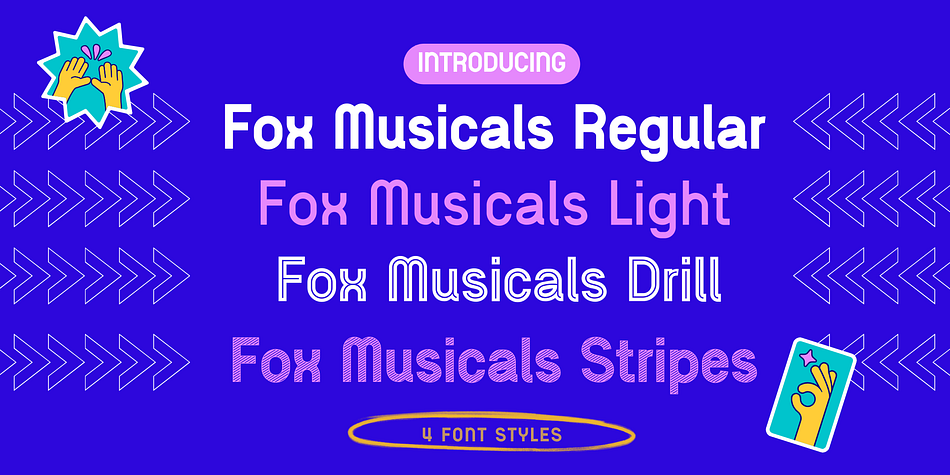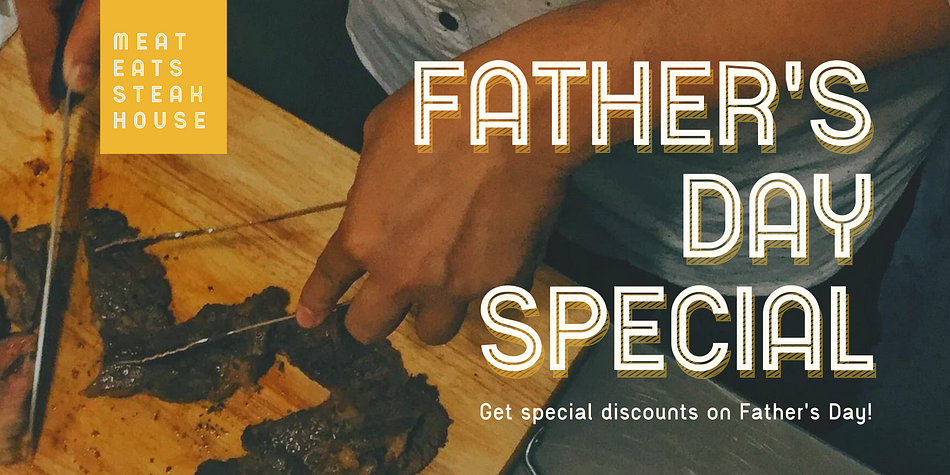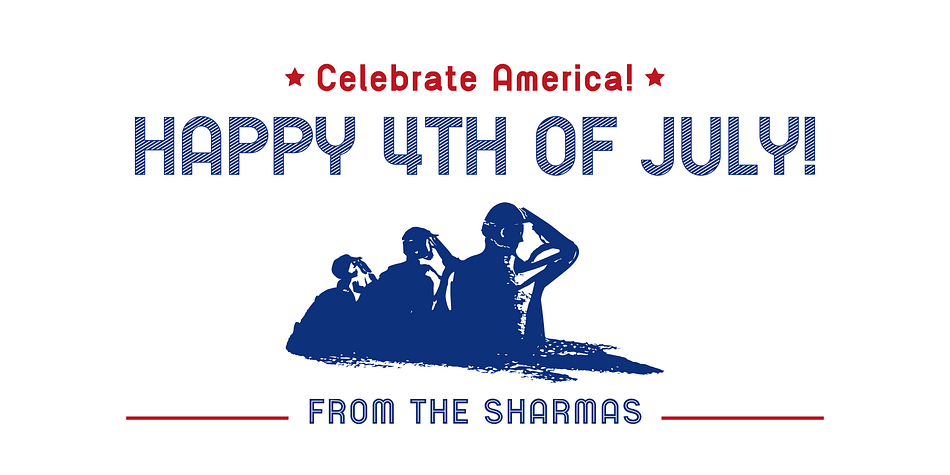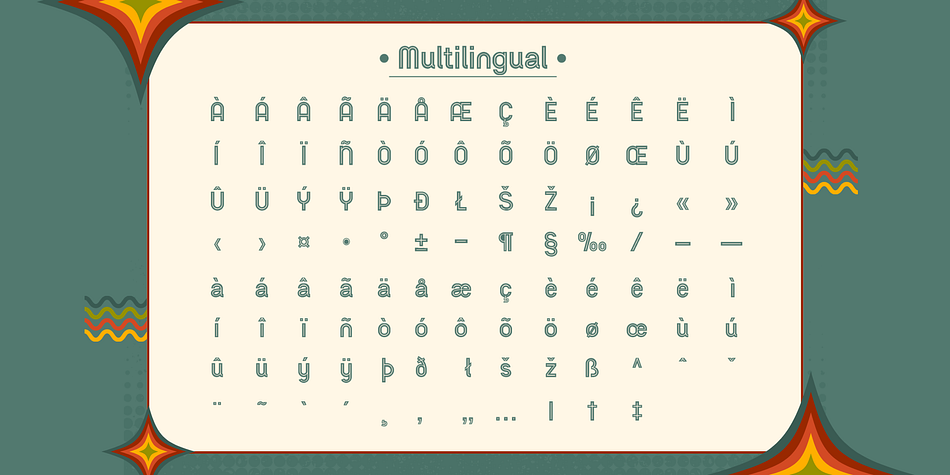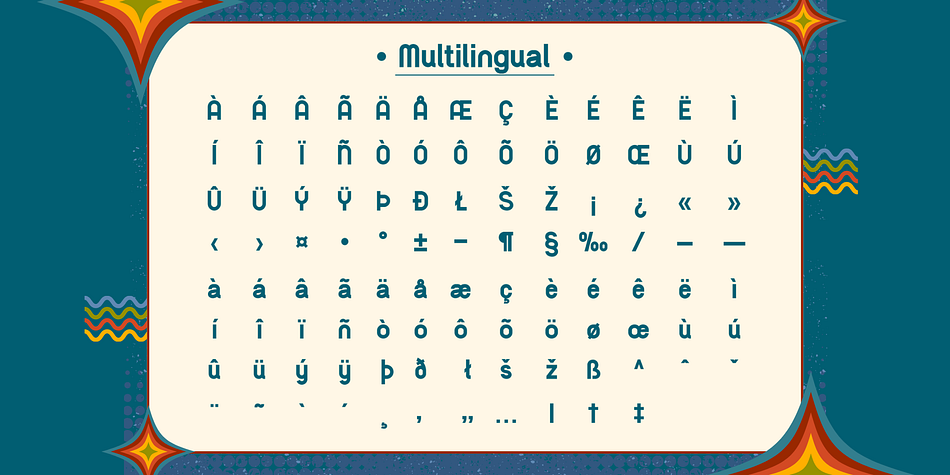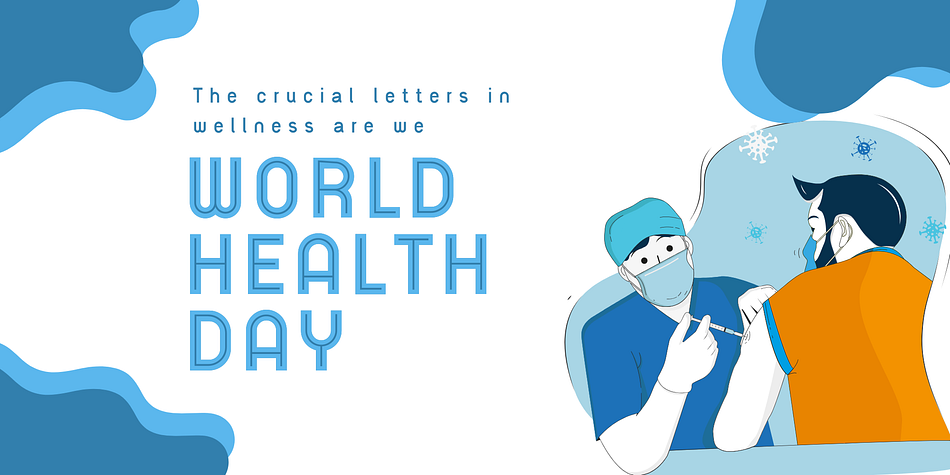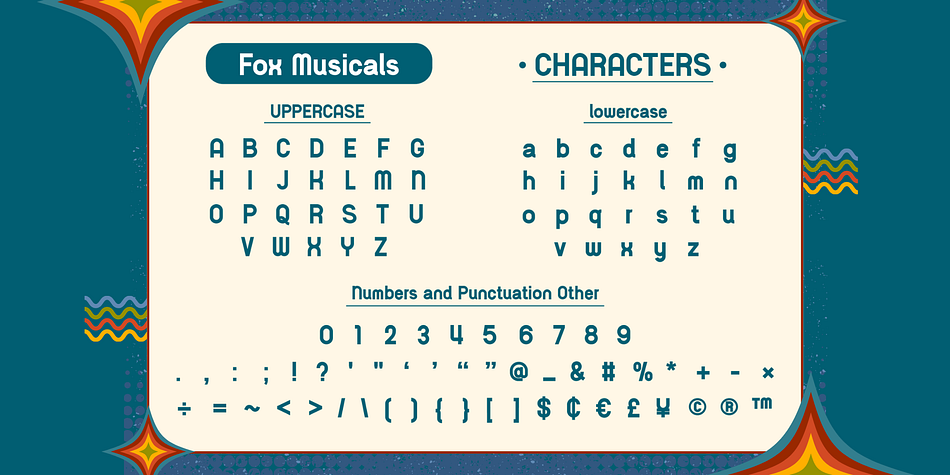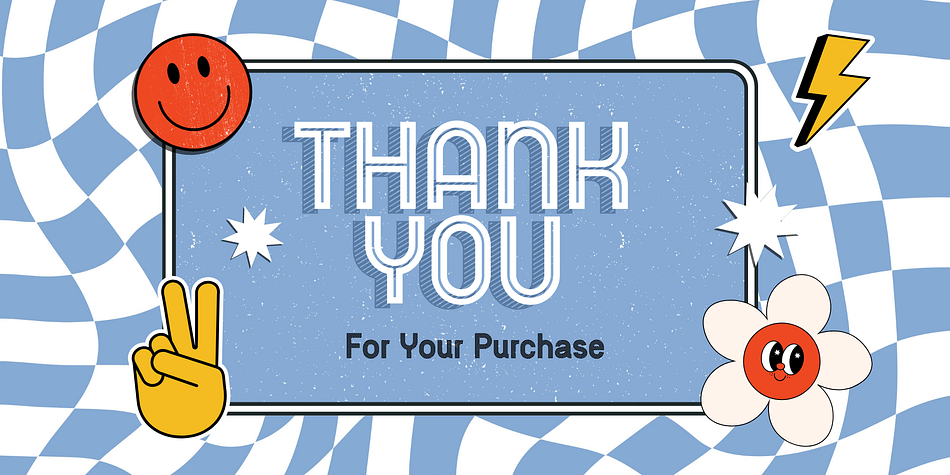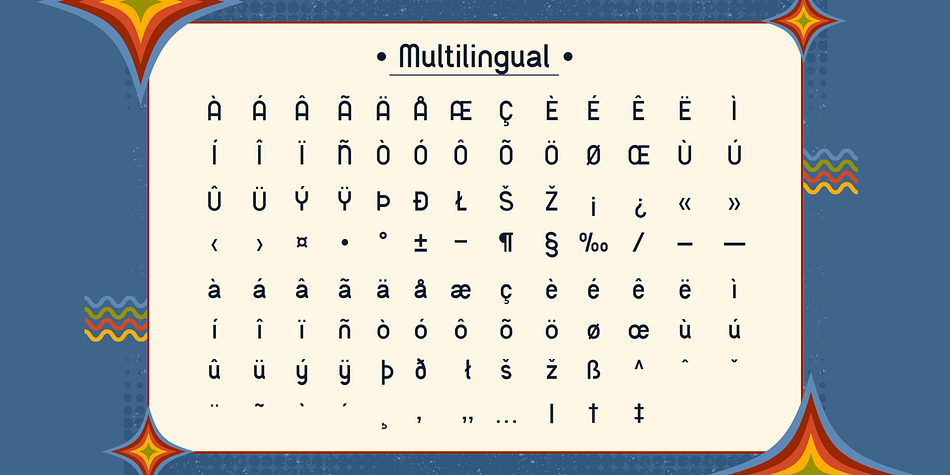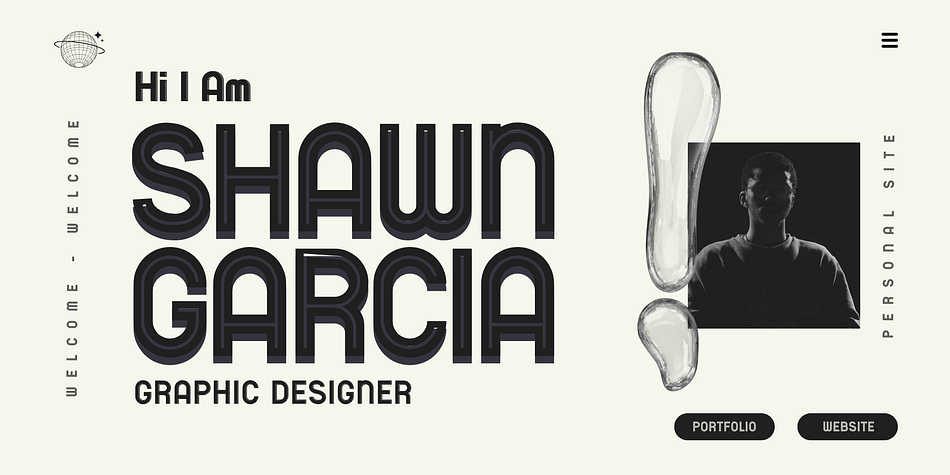
Fox Musicals
Designed by Rattana Rattanawan, Fox Musicals is a display sans font family. This typeface has four styles and was published by Fox7.
Fox Musicals is a font created in 4 styles a charming and inviting cool typeface. Perfect for use in publications, menus, logos, business cards, or even printed on t-shirts, these fonts exude uniqueness. They stand out in everything, regardless of the subject matter. A valuable addition to your font library.